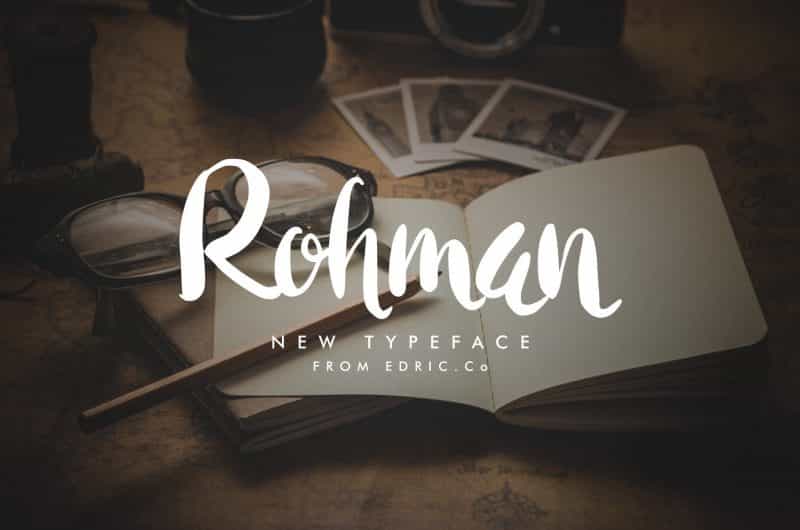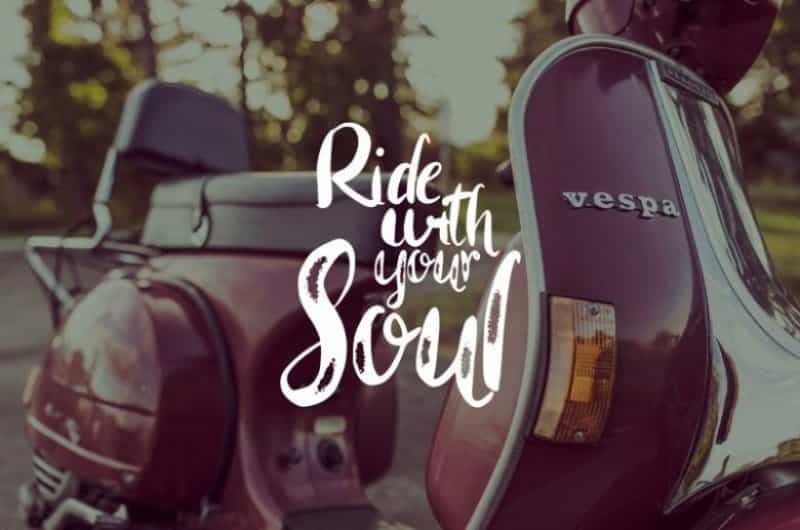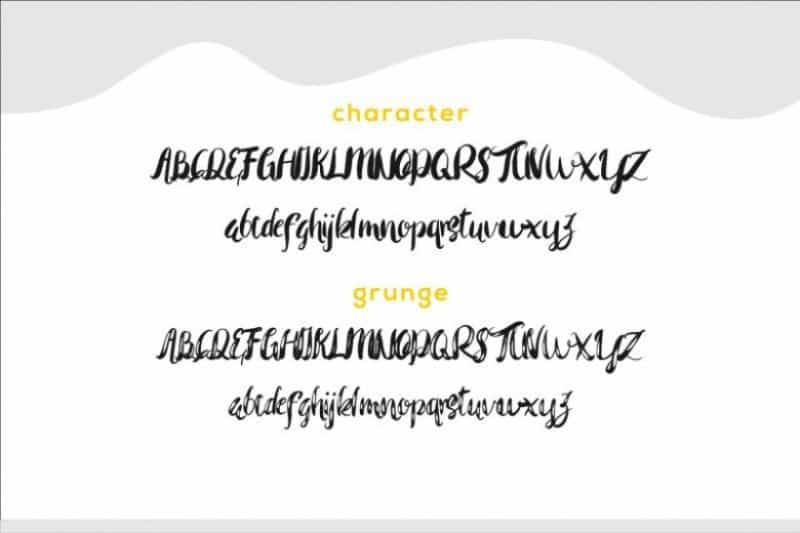
Discover Rohman Script Font, part of the Brush collection—a versatile and unique font perfect for adding a personal touch to your projects. Download it for free and enjoy crafting designs with style, from invitations to social media posts. This font is available exclusively for personal use, giving you the freedom to create without limits. Unlock your creativity with Rohman Script Font today!
It will be a great material for the poster, quote, social media, flyer signage etc. The original theme was vintage but it can also be used for modern industry like photographer, make up artist, barber and salon. It will be great for a wedding logo, invitation, paper, letter etc. The grunge style look is really genuine and special.